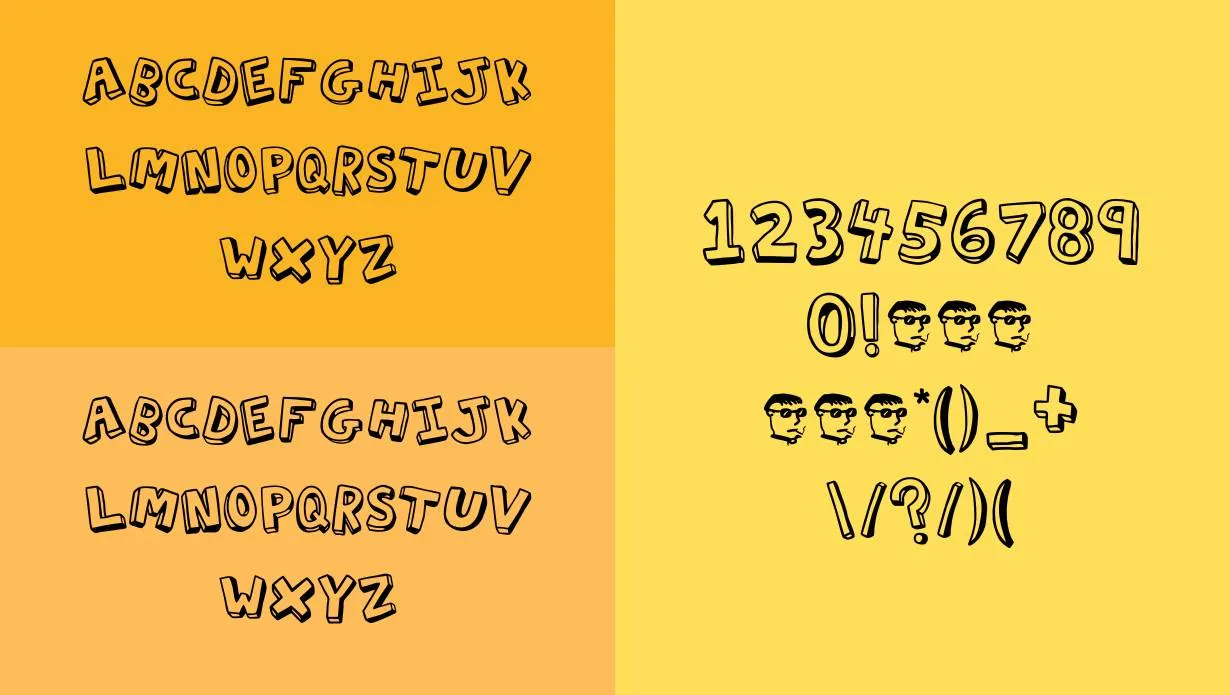
Action Jackson font emanates a dynamic and bold appearance, commonly employed in action movie posters, bold headlines, or any project requiring strong and impactful typography.
Its vibrant and robust style ensures that the text stands out prominently, making it perfect for designs aiming for a powerful visual impact. Elevate the aesthetic appeal and precision of your design by pairing the typeface style with other fonts, such as the squirrel font, available on our website.